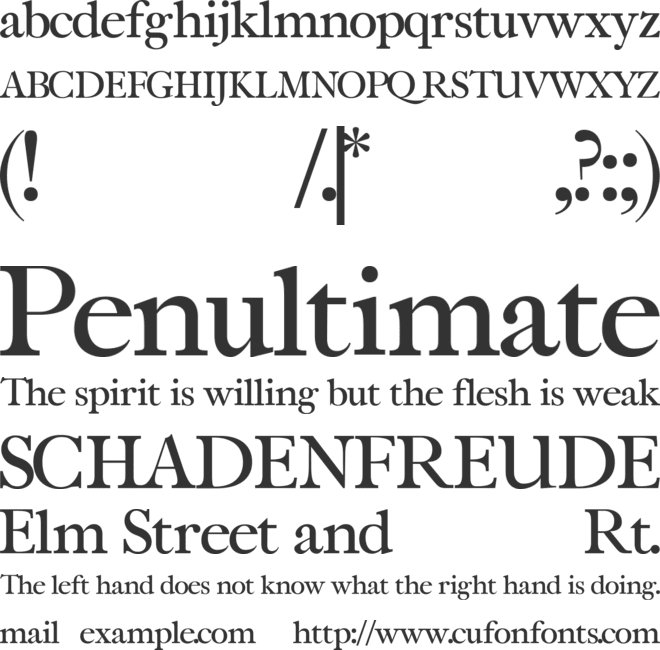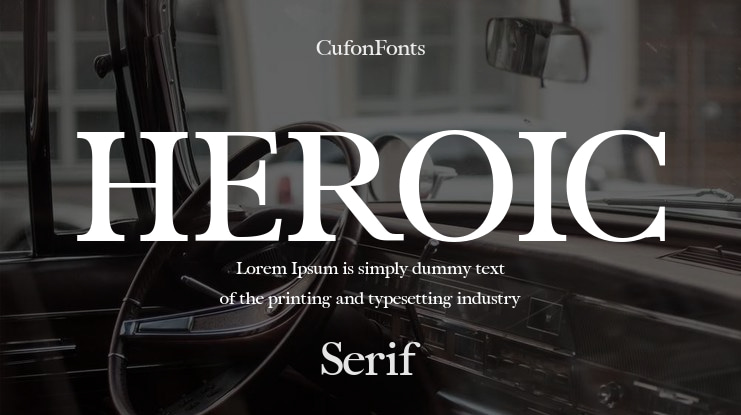
HEROIC Font
🎨 Font Name: Heroic by Minimalist Art Studio
🎨 Font Description: Heroic is an elegant serif with multilingual support and timeless structure, ideal for branding, editorial, and luxury packaging.
βœ” Complete Latin set + multilingual diacritics
βœ” Alternates, stylistic sets & ligatures
βœ” Numbers, small caps, and extended punctuation
βœ” Bonus italics and family styles